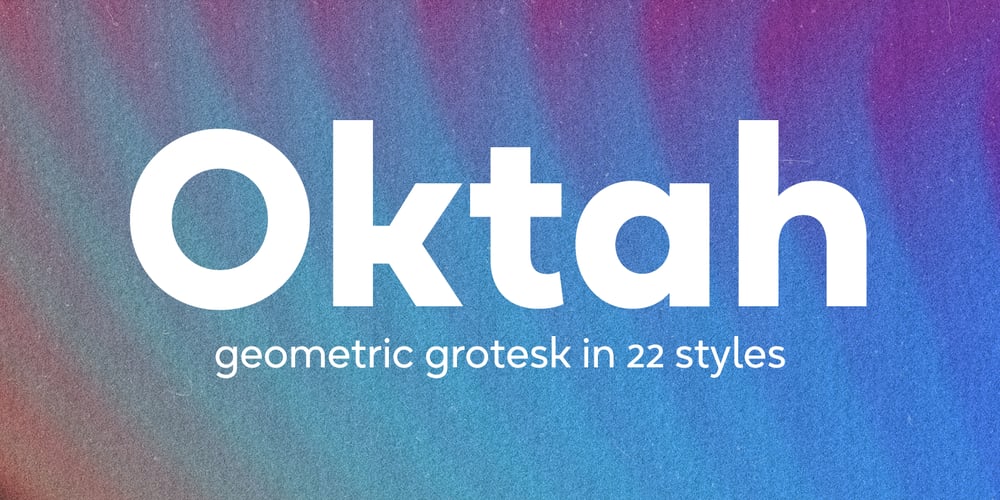
Oktah Font Family was designed by Eugene Tantsurin and published by Groteskly Yours. Oktah contains 23 styles and family package options. Oktah is a geometric grotesk that comes both as a variable font and 22 static fonts: 11 uprights and 11 matching italics, which make it a great tool for those seeking a versatile font with a strong character and high legibility. Throw in a very pleasing look, elegant curves and a wide range of weights, and you’d get what Oktah aspires to be: a perfect typographic tool for every need.In Oktah, elegant geometric curves meet bold strokes and wide apertures. Round letters are nearly circular, but, to boost readability, slight changes were introduced for optical compensation. Oktah is also equipped with amazing OpenType features: case sensitive punctuation, ligatures, fractions, superscript and subscript figures, two kinds of circular figures, stylistic & contextual alternatives and much more!Oktah supports all major European languages, as well as Vietnamese and some dozens of foreign languages that you may encounter in your designs. We’ve got all that covered. The glyph count for each of the styles is 800+ characters.Two styles (Extra Light and Bold Italic) are free to try and experiment with. If you need wide language support and more extensive OpenType features, consider taking a look at Oktah Neue, a bigger version of the classic Oktah.